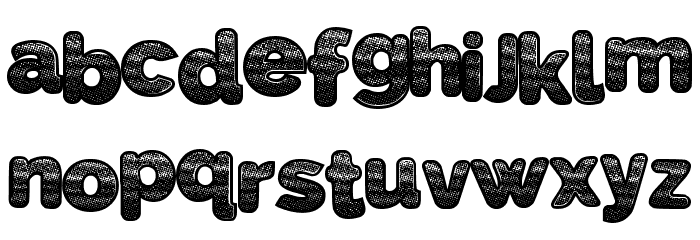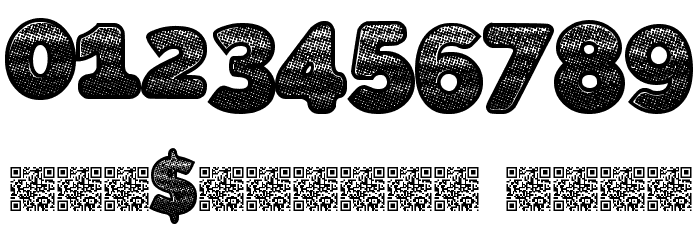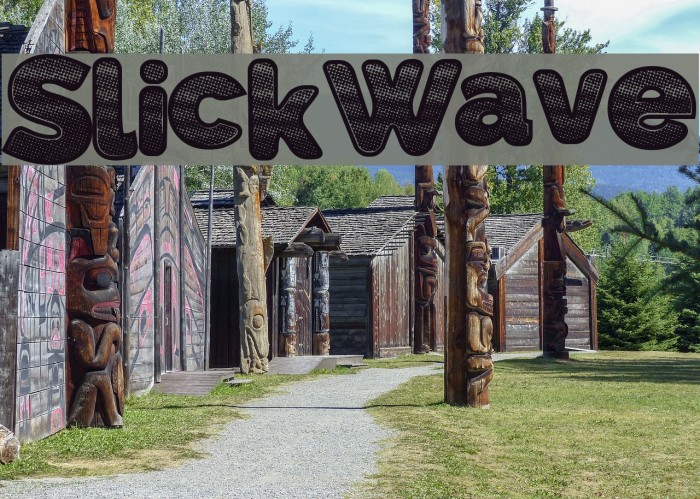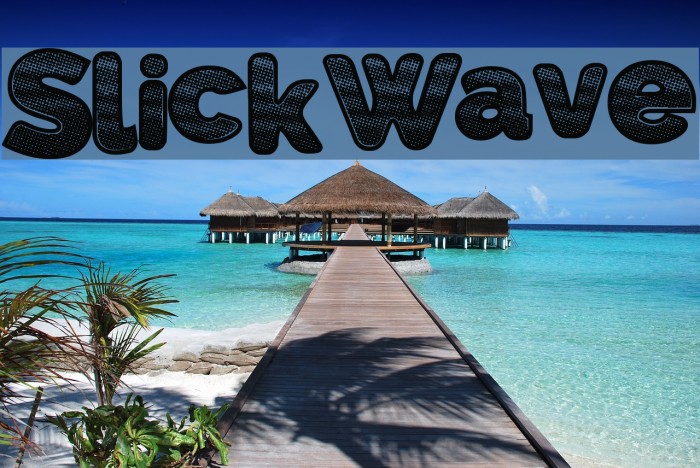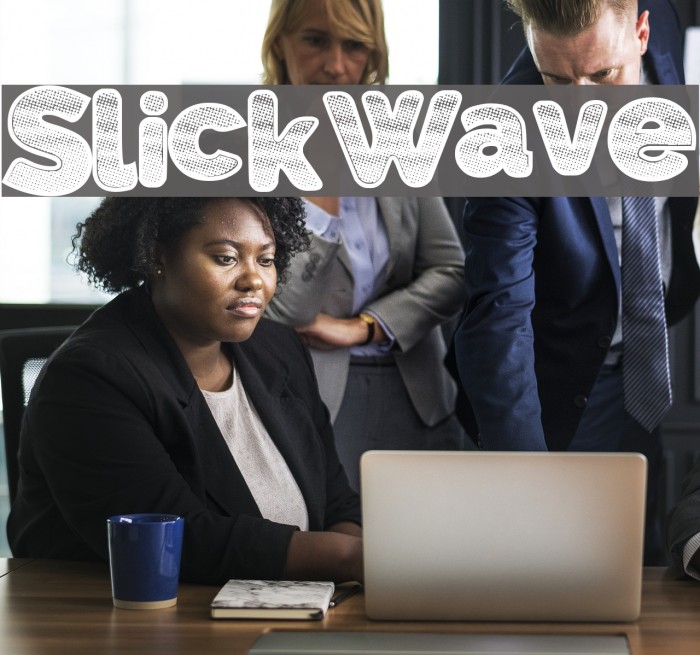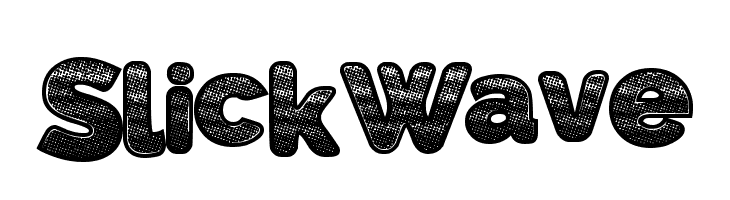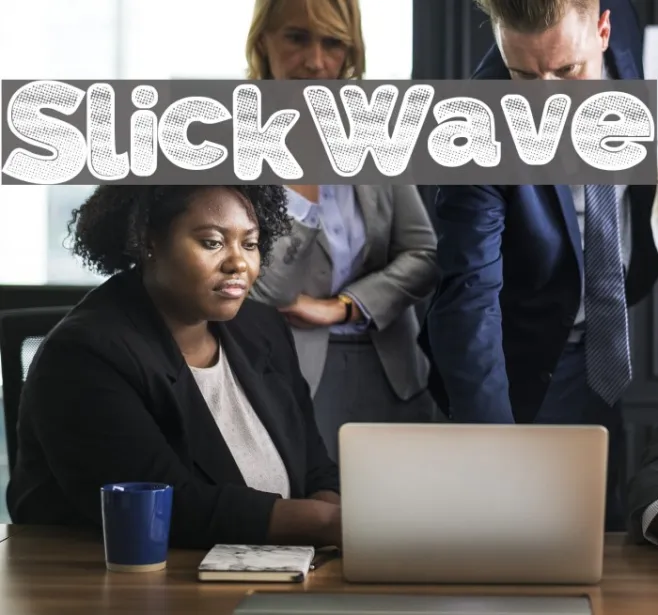
SlickWave Font
This font features a bold, playful style with a textured, dotted pattern filling each character. The letters are rounded and have a bubbly appearance, giving them a friendly and approachable look. The uppercase and lowercase letters maintain a consistent style, with the lowercase being slightly smaller and more compact. Numbers and special characters follow the same design, ensuring uniformity across all elements. The font's unique texture adds a layer of depth and interest, making it stand out in any design. Its boldness and decorative nature make it suitable for eye-catching projects.
A bold, playful font with a dotted texture and rounded, bubbly letters.
- Proposed Projects: Ideal for children's books, playful branding, posters, and creative invitations.
- Overall Style: Playful, Decorative